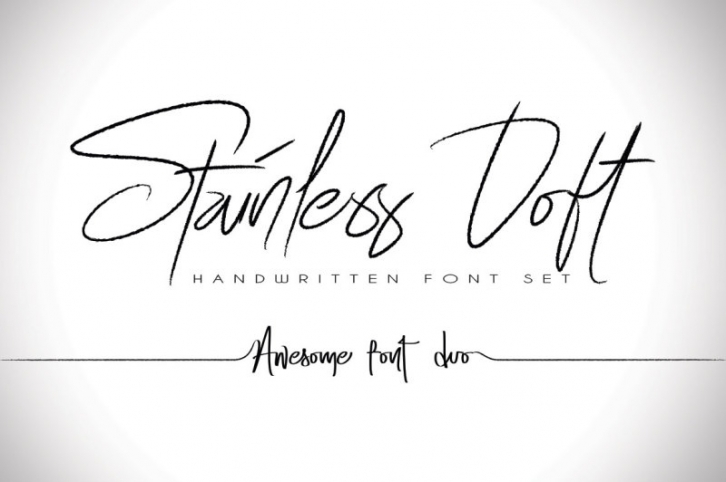
Introducing Stainless Doft! A Clean & Classy signature-style font duo with awesome characters!
Stainless Doft to make it look even more natural than a standard font, include Ligatures (letters custom).
Suitable for Branding, greeting cards, business card, apparel, t-shirt (your name), signature, logo, correspondence, and a variety of other purposes.
Features for each:
- Uppercase - Lowercase - Number - Punctuations - Ligatures